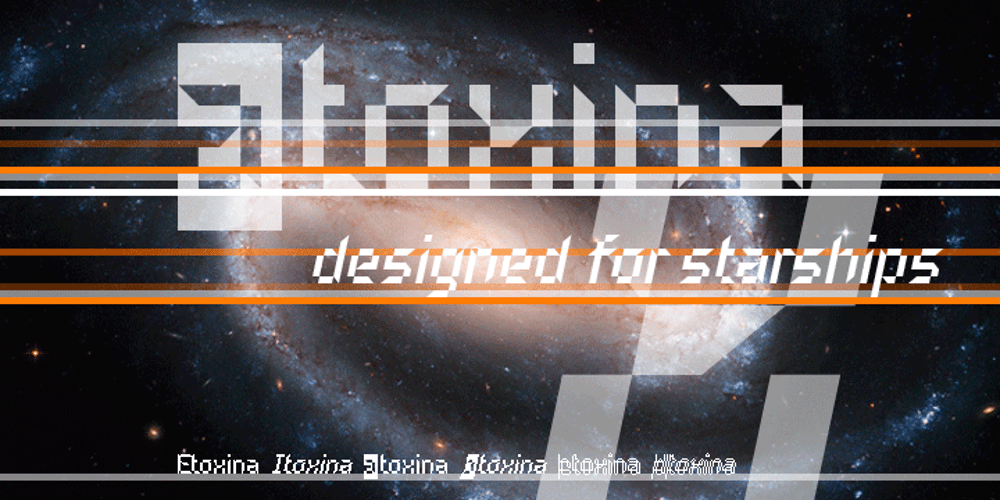
Etoxina Font Family was designed by Filippo Salmina and published by FSdesign-Salmina. Etoxina contains 1 styles and family package options. Etoxina is designed especially for the burgeoning market of starships and other space cruisers. Etoxina has been developed with the contribution of experts in navigation through space and time. The fonts are ideal for internal and external use (including zero-g and occasional bursts of cosmic rays), and with their simplified forms are expected to survive well in non-linear galaxies. With their unusual diagonal half-pixels the fonts are striking as abstract designs at astronomical sizes, where small text may be placed within the black holes formed inside the letters. On explicit suggestion of Mr. Spock true capital letters have been added.